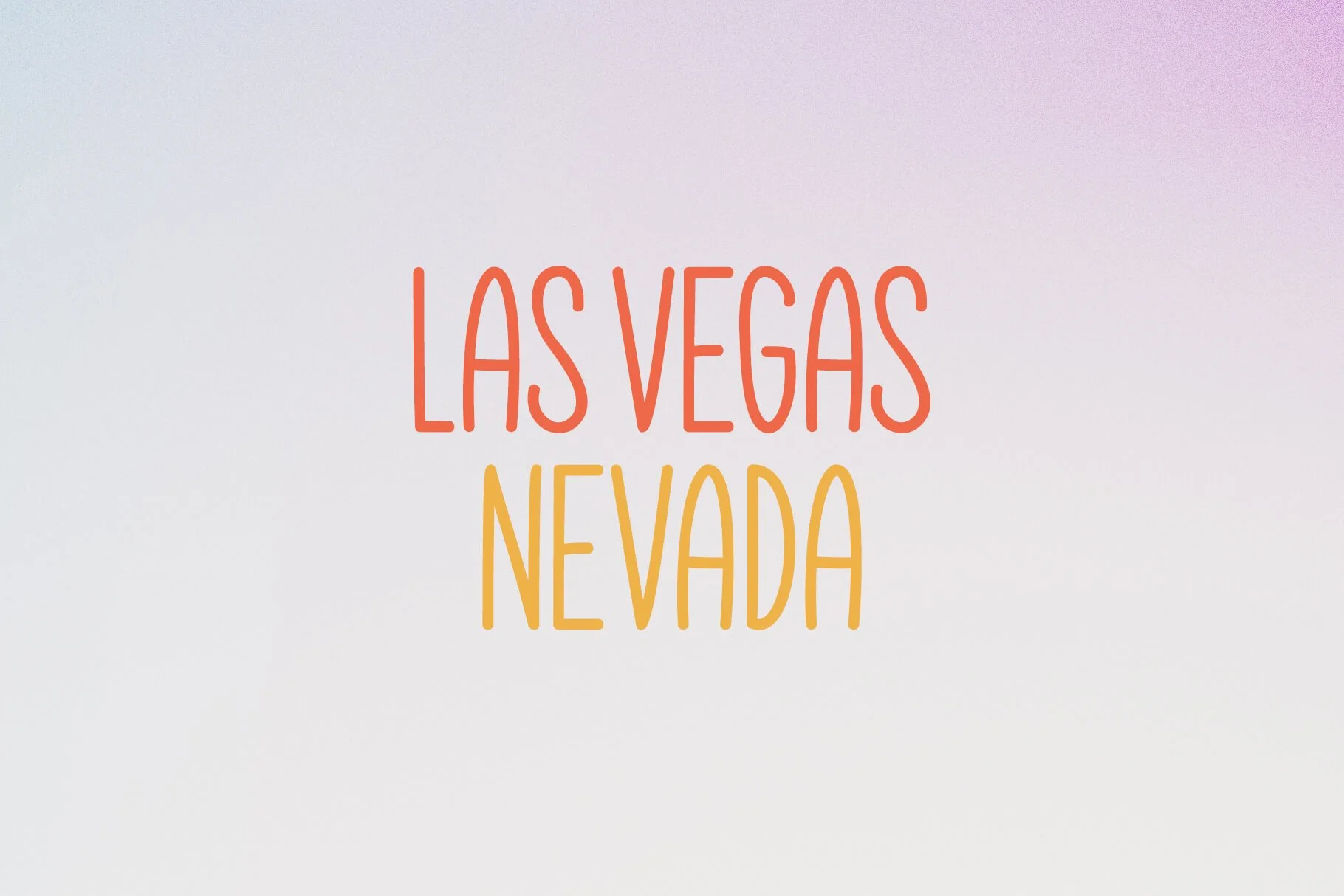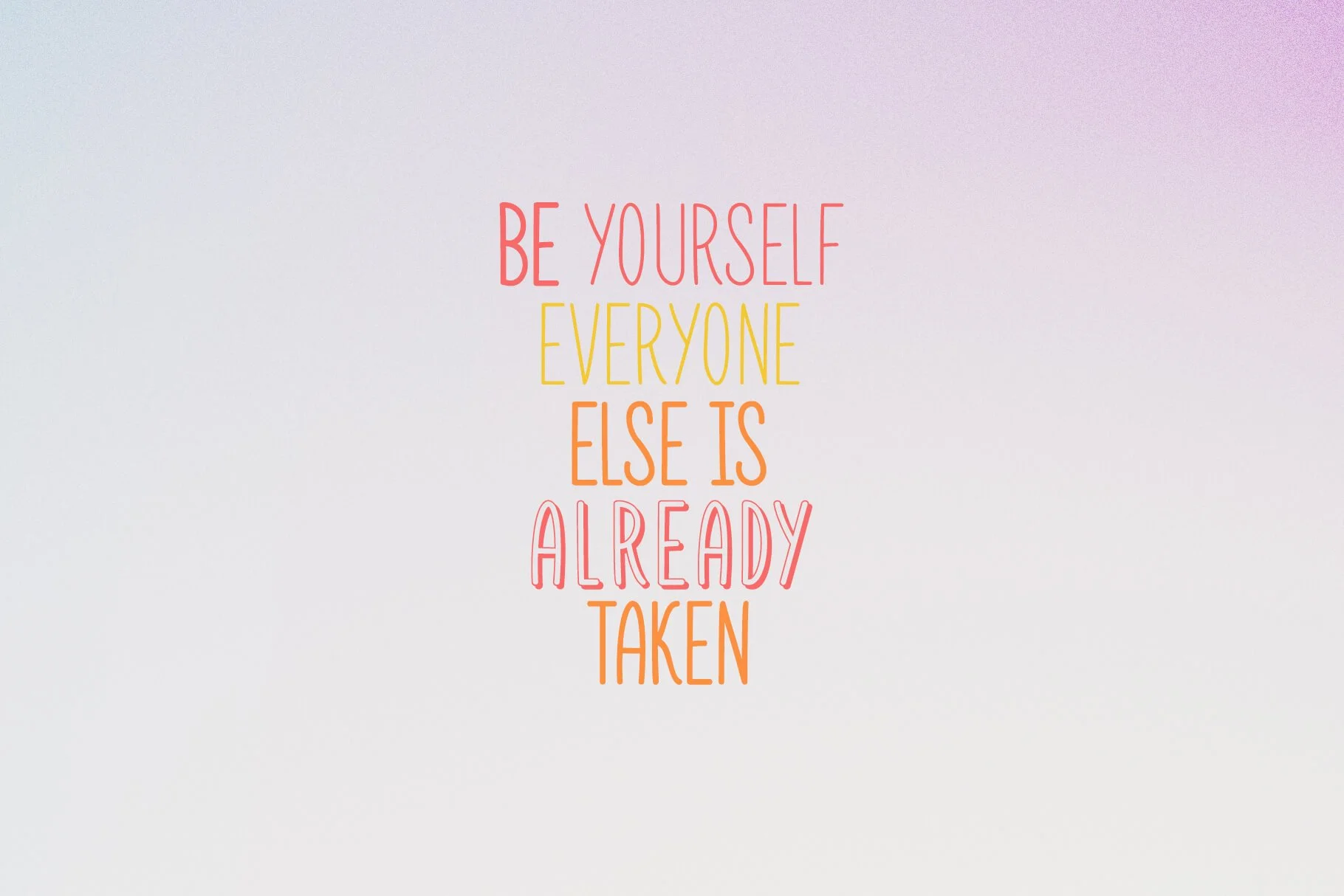
Karmina Handwritten Font
Discover Karmina, an elegant handwritten font that combines readability with a versatile, balanced design. Perfect for any use, from websites to business cards, Karmina's delicate, flowing lines offer sophistication, while its clear lettering ensures ease of reading. Ideal for both professional and personal projects, Karmina adds a touch of grace to your typography. Experience the charm of Karmina in your next design endeavor.
This font includes 3 styles; Standard, Bold & Shadow.
Cyrillic